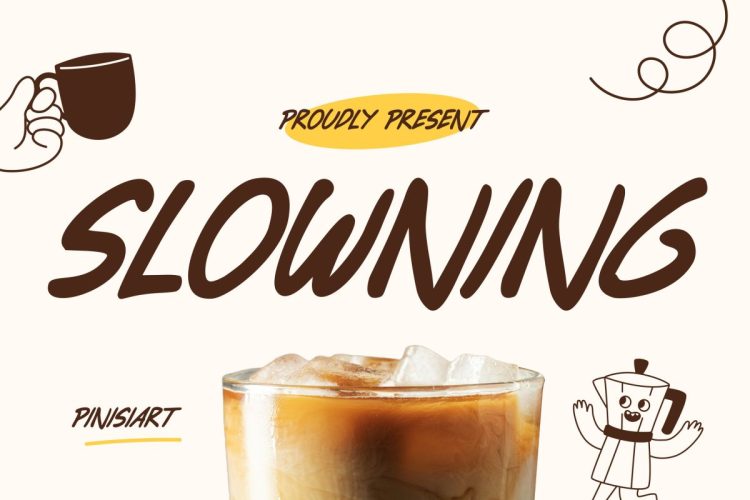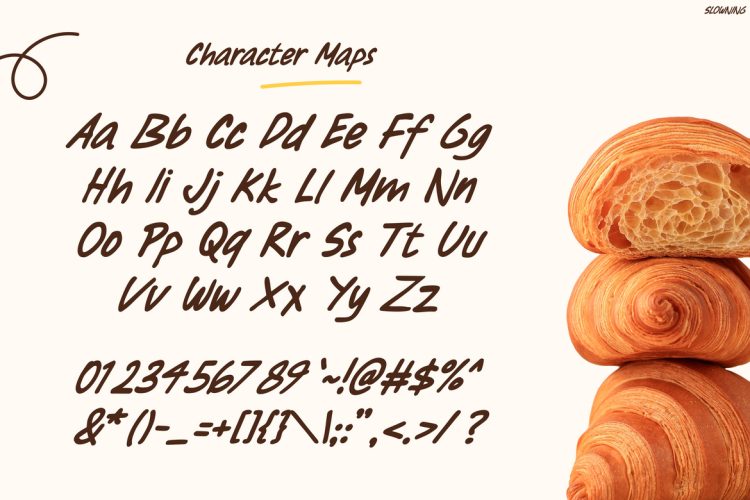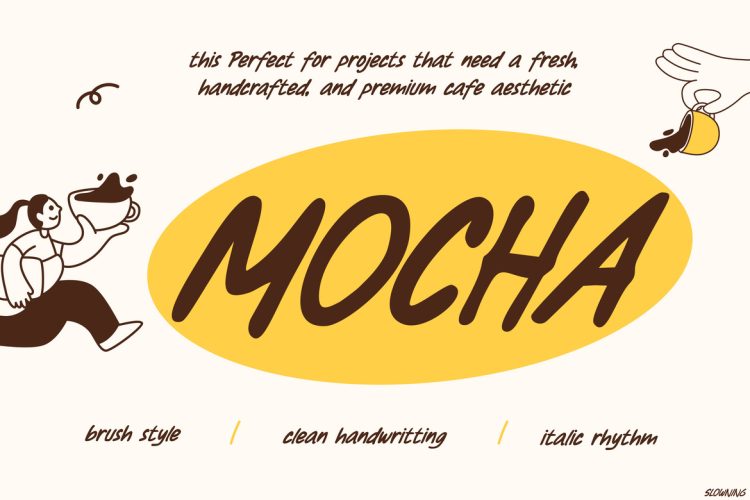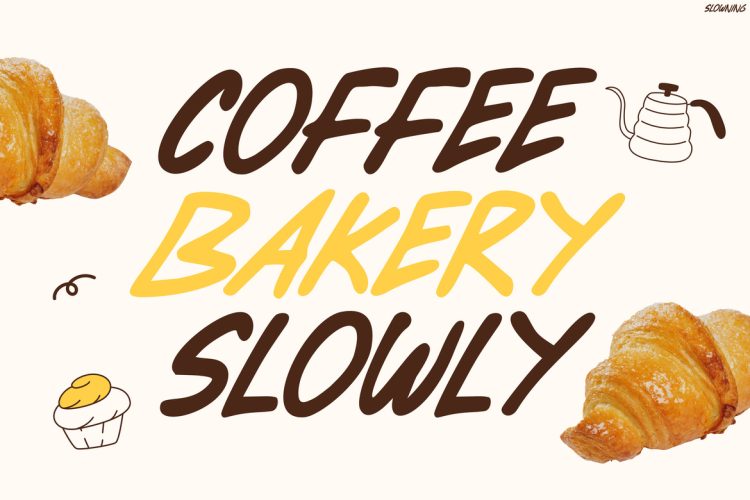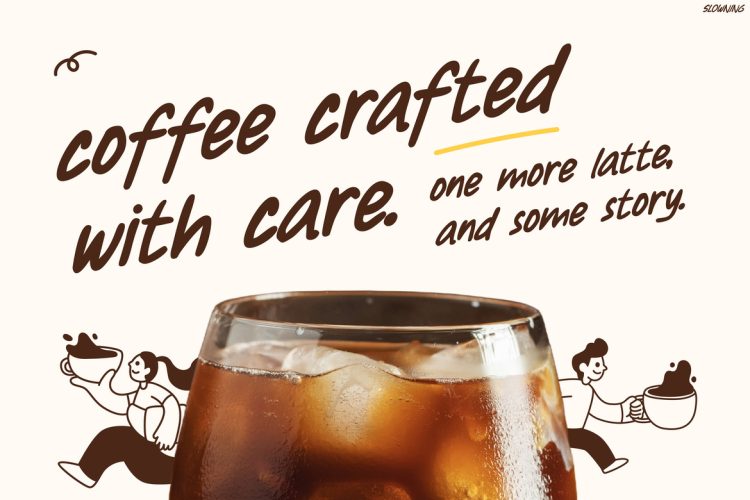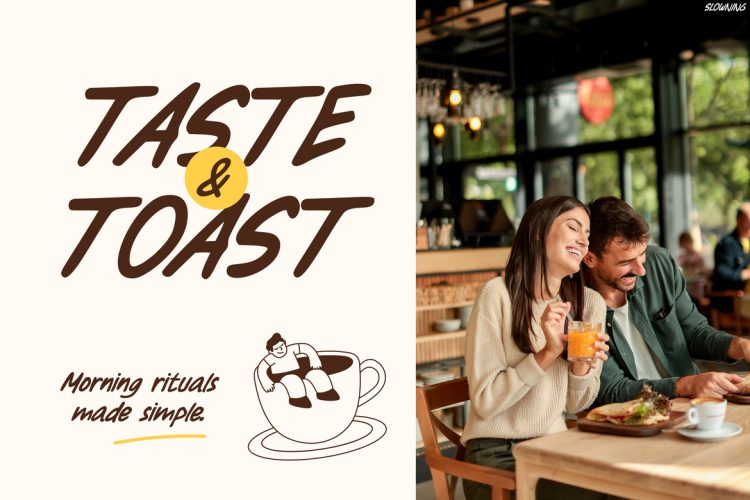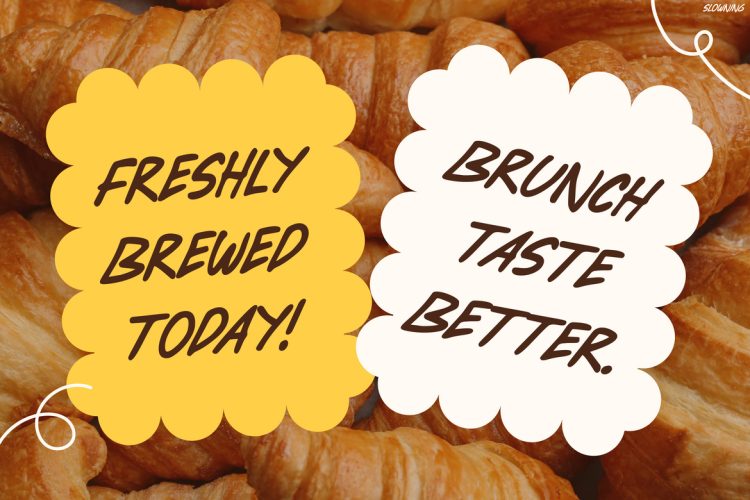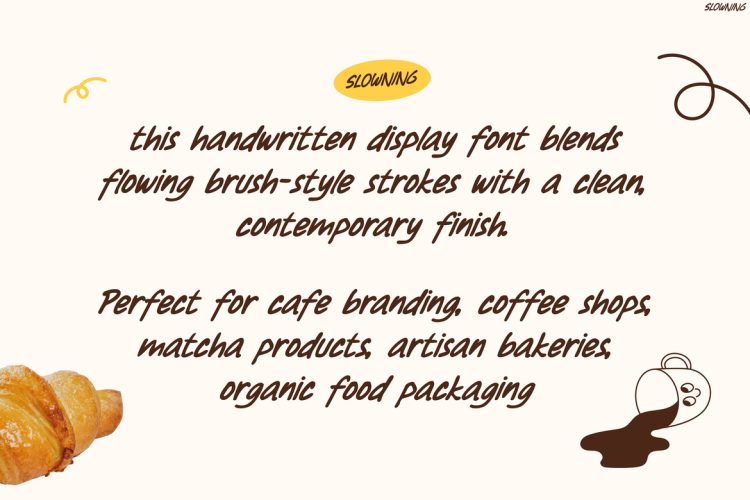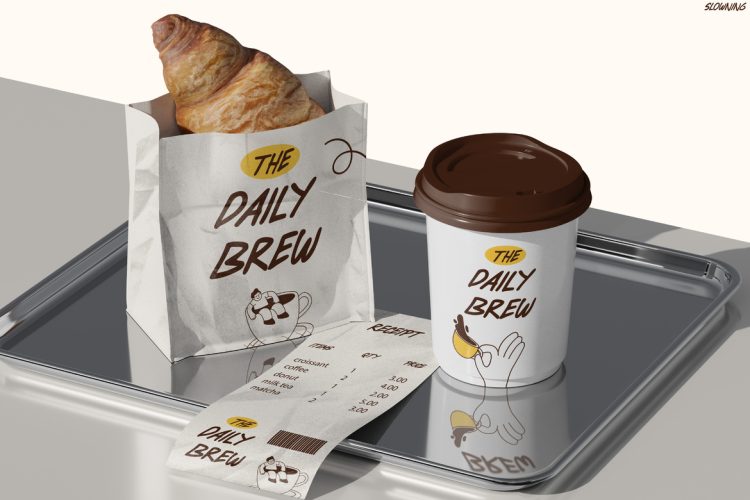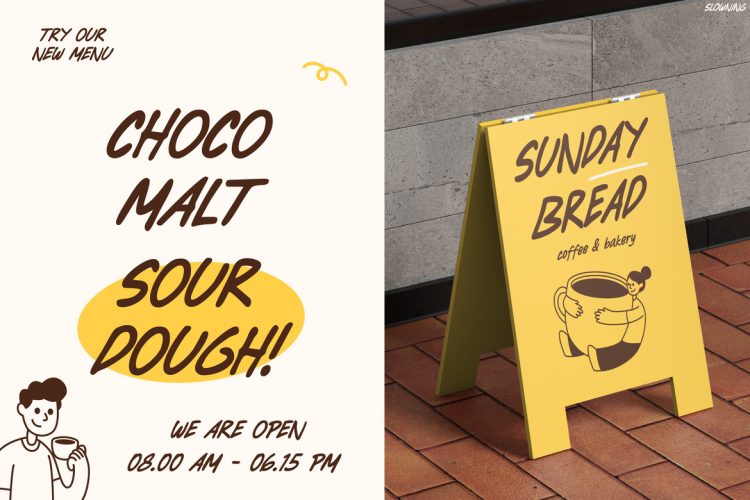
Handwriting Font Slowning โ Slow Strokes. Warm Stories. Handmade Moments.
Handwriting Font Slowning captures the comforting feeling of slow mornings, fresh coffee, and handmade creations through its flowing brush strokes and relaxed handwritten style. Unlike ordinary script fonts, Slowning blends casual movement with clean readability, creating typography that feels authentic, welcoming, and effortlessly stylish. Moreover, every letter carries a natural rhythm that makes your designs feel personal and inviting. As a result, every headline tells a story instead of simply displaying text. In addition, its handcrafted appearance pairs beautifully with cozy branding and lifestyle visuals, so your designs instantly create a warm emotional connection. Whether you’re building a cafรฉ identity or designing artisan packaging, Slowning delivers charm in every stroke.
Crafted for Cozy Brands and Creative Makers
Handwriting Font Slowning gives designers an easy way to create branding that feels warm, genuine, and handcrafted. Not only does it add personality to every headline, but it also creates an inviting atmosphere that customers naturally trust. Furthermore, it works beautifully for coffee shops, bakeries, cafรฉs, restaurants, artisan food packaging, handmade product labels, menu boards, recipe books, Instagram posts, quotes, greeting cards, lifestyle branding, event promotions, and seasonal campaigns. Meanwhile, its smooth brush flow keeps every word expressive, while its balanced structure maintains excellent readability. Consequently, every design feels more relaxed, memorable, and full of handcrafted character.
Handwriting Font Slowning Perfect For
- Coffee shop branding
- Cafรฉ menus
- Bakery packaging
- Artisan food labels
- Restaurant promotions
- Handmade product branding
- Social media graphics
- Lifestyle blogs and quotes
Serve Every Design with Warmth
If you want typography that feels handcrafted, comforting, and full of personality, Slowning is the perfect choice. Furthermore, its relaxed brush style creates an authentic visual experience that people instantly enjoy. At the same time, its clean construction keeps every project polished and readable. Therefore, your brand feels more approachable, memorable, and inviting. Finally, choose Slowning today and let every design tell a warm story worth remembering.